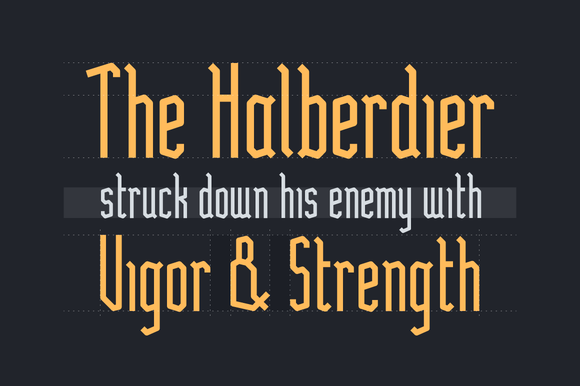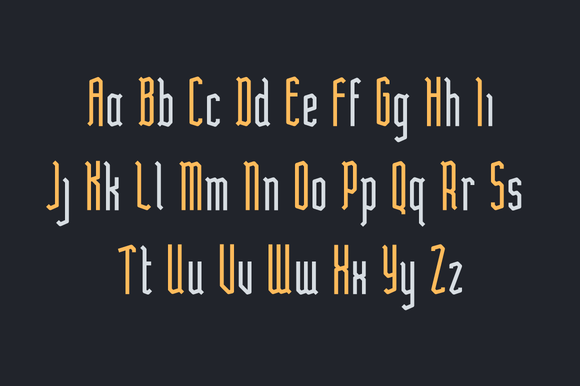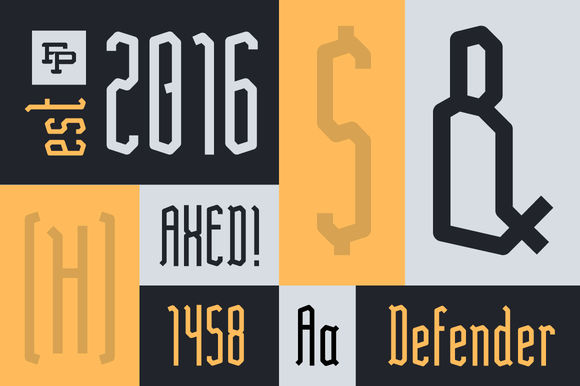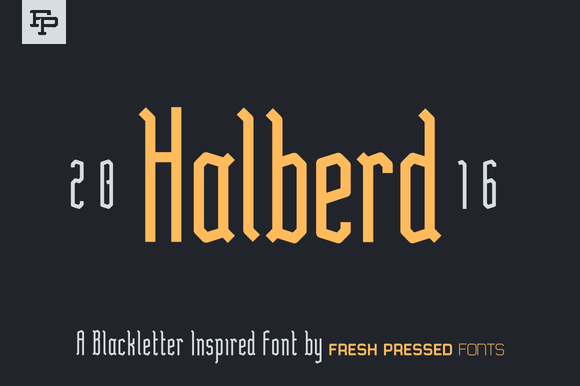
Introducing Halberd Font: A Modern Twist on Classic Blackletter Typography
In the world of typography, blackletter fonts have always been a staple for designers seeking to evoke a sense of elegance, sophistication, and vintage charm. However, with the ever-evolving landscape of design, it’s not uncommon for classic fonts to feel, well, a bit stale. That’s where Halberd Font comes in – a blackletter-inspired typeface that breathes new life into the traditional aesthetic, infusing it with a modern twist.
The Inspiration Behind Halberd
Halberd Font draws its inspiration from the classic blackletter typefaces of the past, but with a creative spin. The result is a font that feels both nostalgic and fresh, perfect for designers looking to add a touch of sophistication to their projects. Whether you’re working on a poster, packaging, flyer, signage, or logo, Halberd is the perfect choice.
What Sets Halberd Apart
So, what makes Halberd Font stand out from the crowd? For starters, its unique uppercase and lowercase letters offer a level of versatility that’s hard to find in traditional blackletter fonts. Additionally, Halberd boasts international language support and an impressive array of supporting glyphs, making it an excellent choice for projects that require a bit more flair.
Key Features of Halberd Font
- Unique Uppercase and Lowercase Letters: Halberd’s custom-designed letters offer a level of sophistication and elegance that’s perfect for high-end designs.
- International Language Support: With support for multiple languages, Halberd is an excellent choice for global brands and designers working on international projects.
- Supporting Glyphs: Halberd’s extensive library of glyphs provides designers with the flexibility to create complex, visually appealing designs.
- Modern Twist on Classic Blackletter: Halberd’s creative adjustments to traditional blackletter typography make it perfect for designers looking for a fresh take on a classic aesthetic.
Using Halberd Font in Your Designs
Halberd Font is incredibly versatile, making it suitable for a wide range of design applications. Here are just a few ideas to get you started:
- Posters: Create eye-catching posters that demand attention with Halberd’s bold, elegant lettering.
- Packaging: Add a touch of sophistication to your product packaging with Halberd’s custom-designed letters and glyphs.
- Flyers: Stand out from the crowd with Halberd’s unique take on traditional blackletter typography.
- Signage: Make a lasting impression with Halberd’s bold, easy-to-read lettering.
- Logos: Create a lasting brand impression with Halberd’s elegant, modern aesthetic.
Halberd Font is an exceptional addition to any designer’s toolkit. Its unique blend of classic blackletter typography and modern flair makes it perfect for a wide range of design applications. With its impressive array of features, including international language support and a vast library of glyphs, Halberd is sure to become a go-to font for designers seeking to create visually stunning, sophisticated designs. So why wait? Give Halberd Font a try today and experience the perfect blend of elegance, creativity, and versatility.